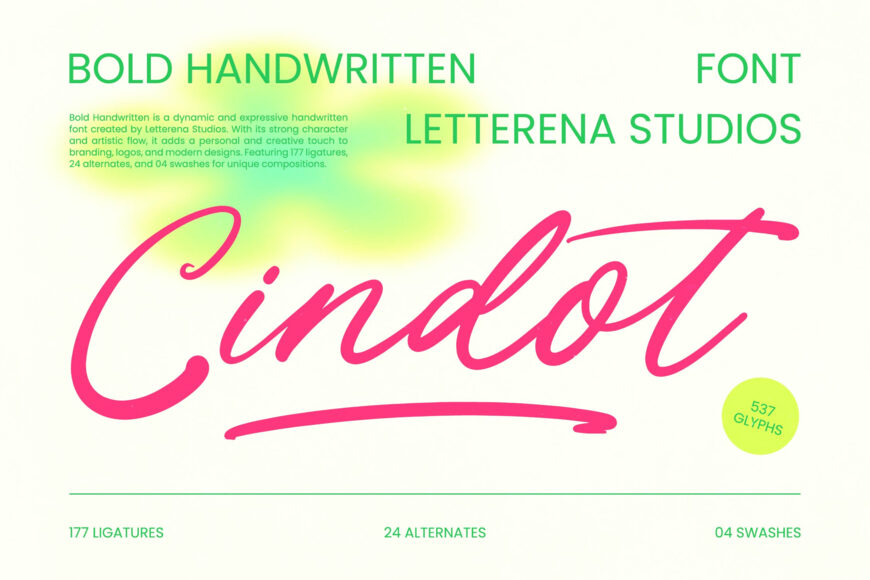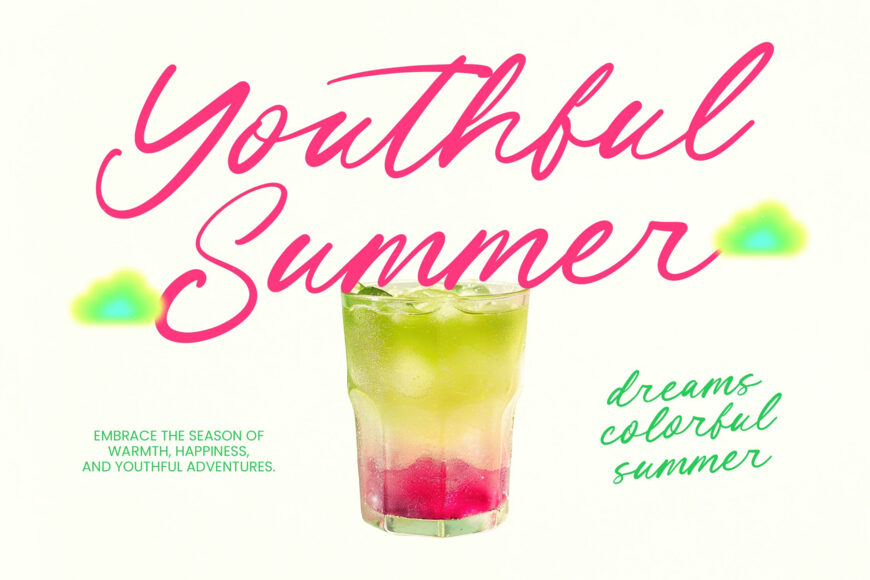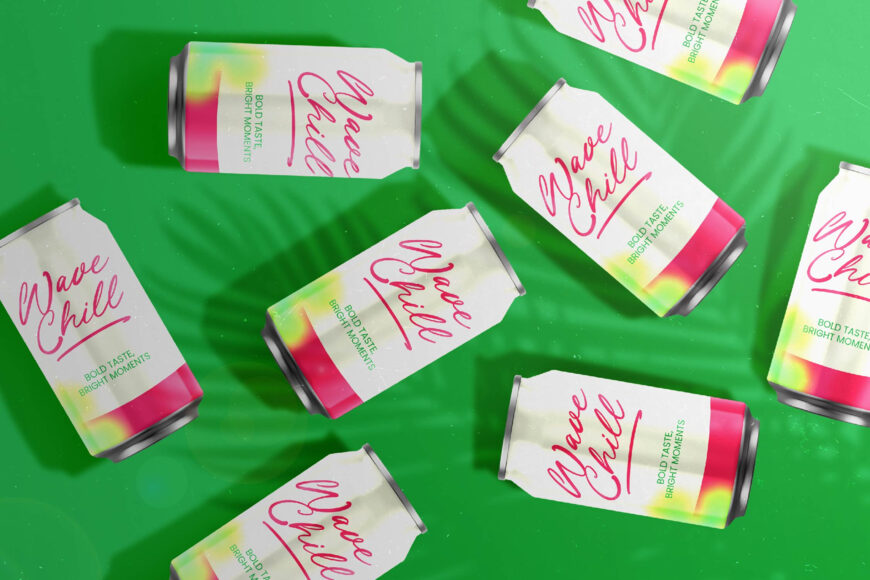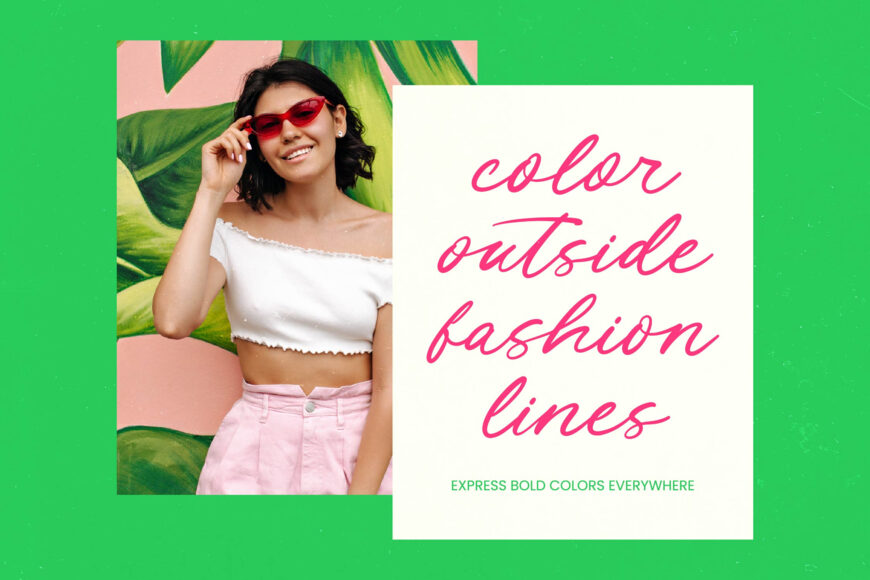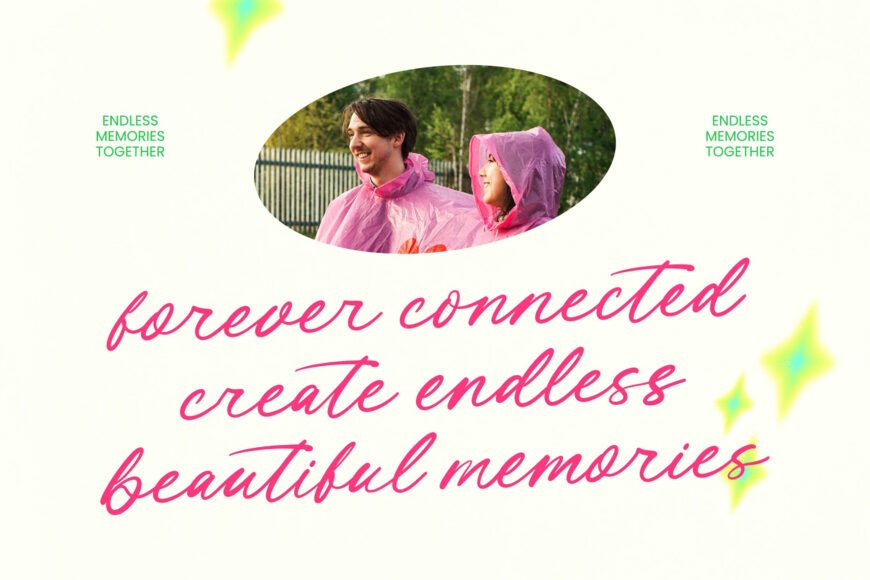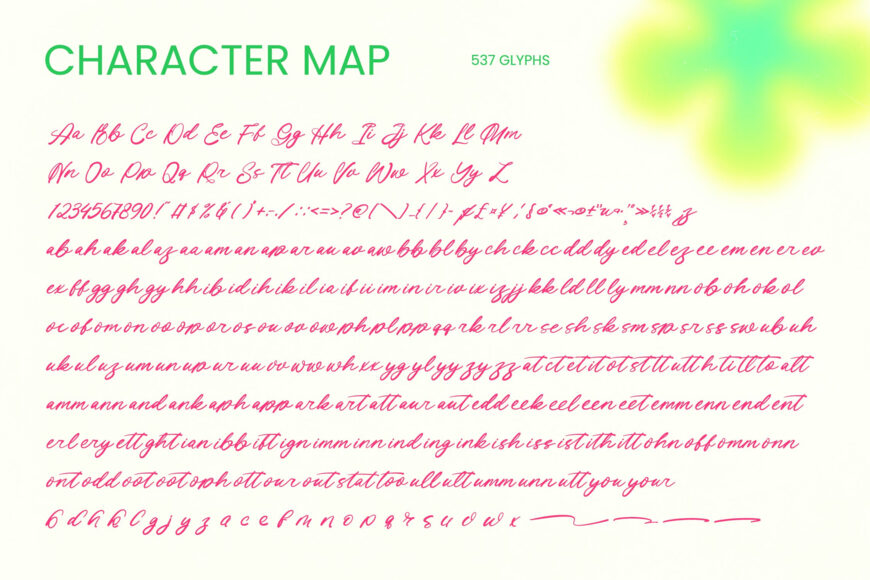
Elevate your design with a font that combines energy and sophistication. This dynamic script font, crafted with organic strokes, adds a personal touch to digital and print media.
With a wide range of glyphs, ligatures, and alternates, it offers a customized look for various projects. Suitable for luxury branding, packaging, and editorial design, it’s ideal for creating strong identities in logo design, social media, and advertising.